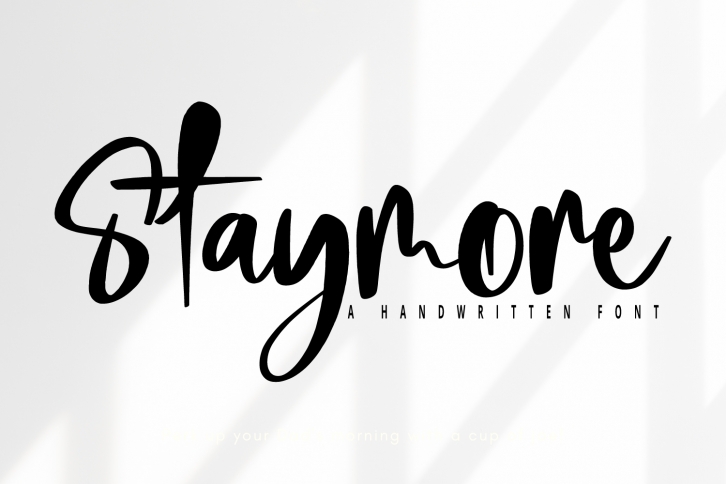
Staymore is a lovely and delicate script font that exudes elegance and class. This font was particularly crafted for those who need a beautiful and refreshing look to their designs. It looks stunning on wedding invitations, thank you cards, quotes, greeting cards, logos, business cards and every other design which needs a handwritten touch.